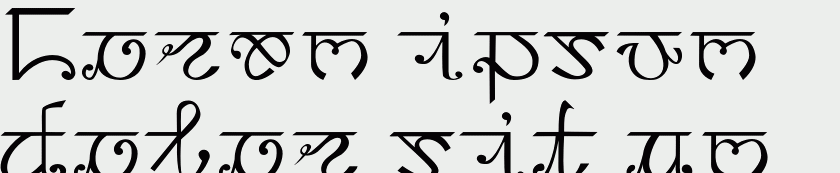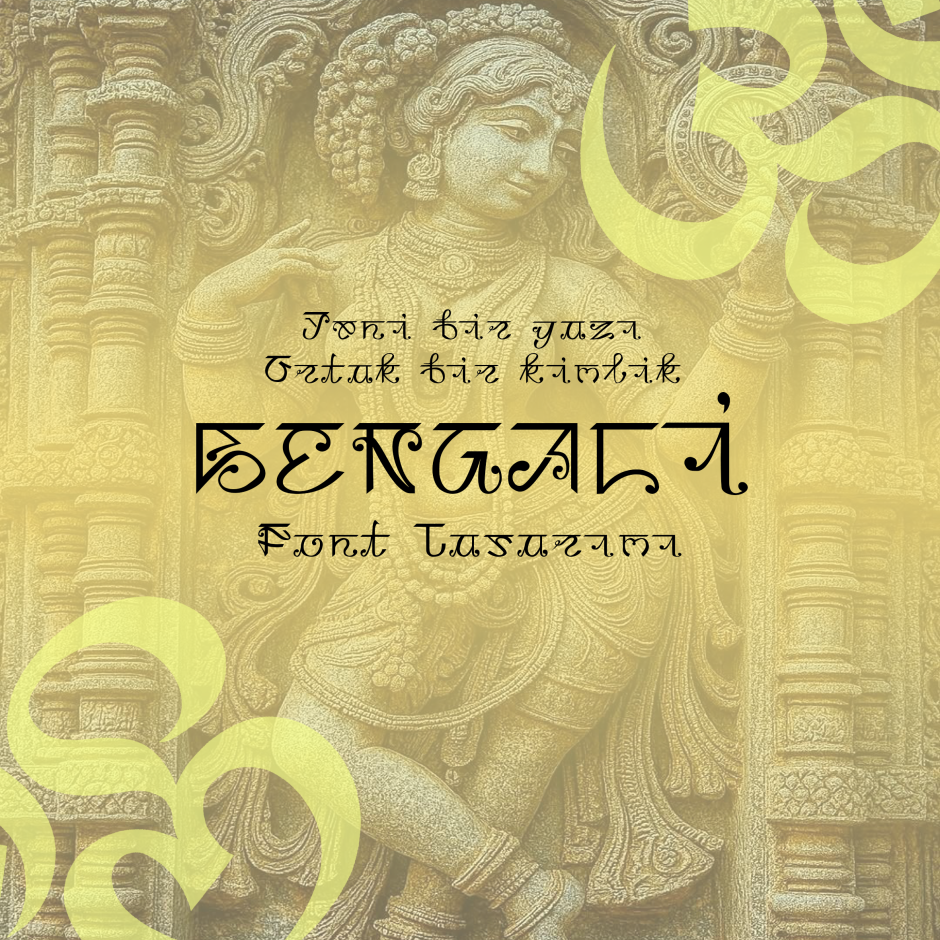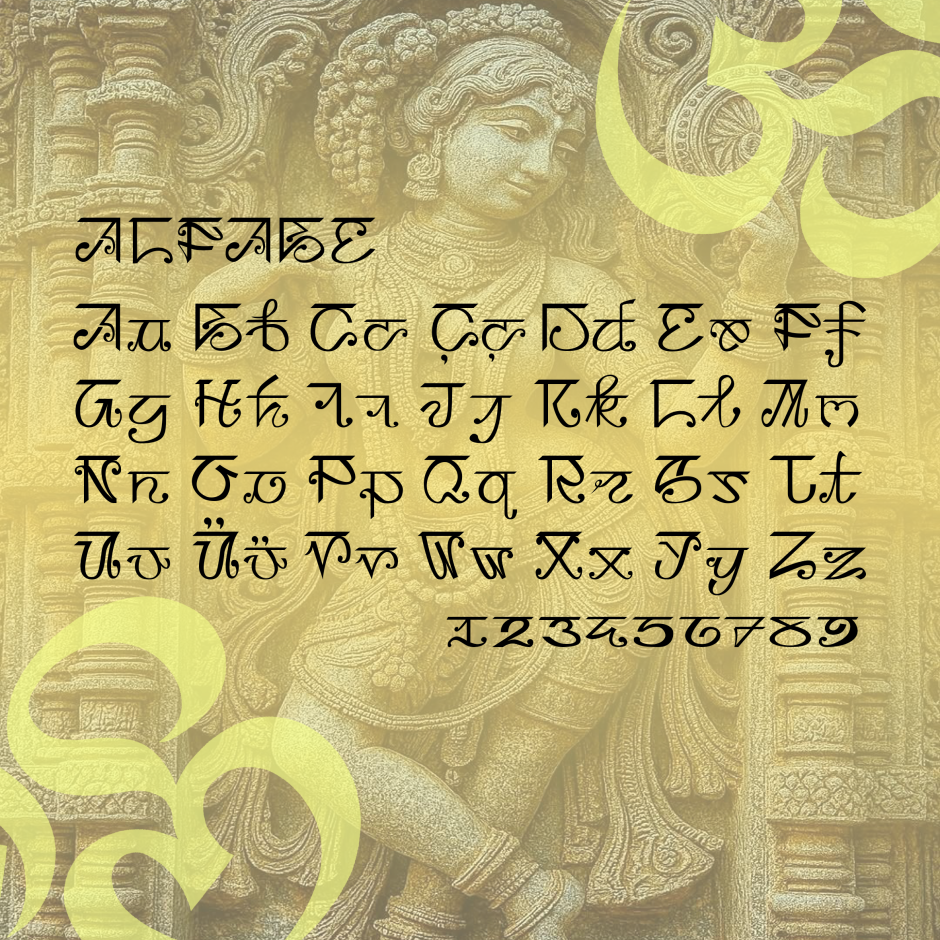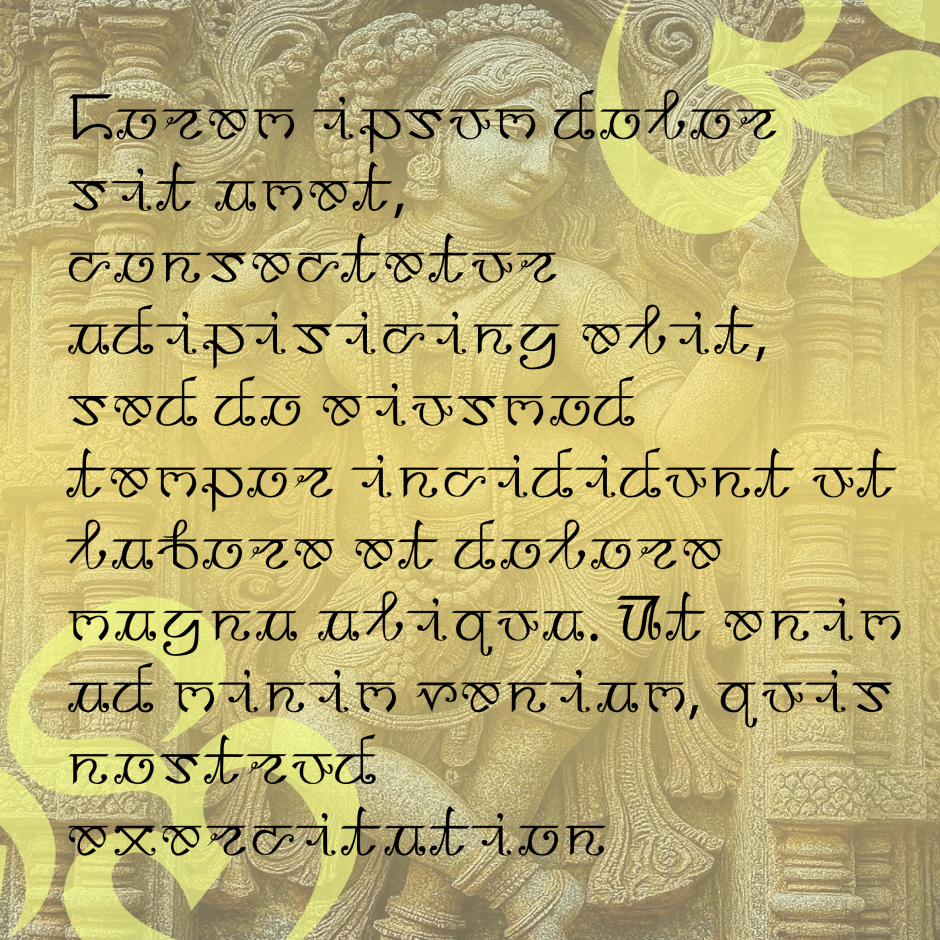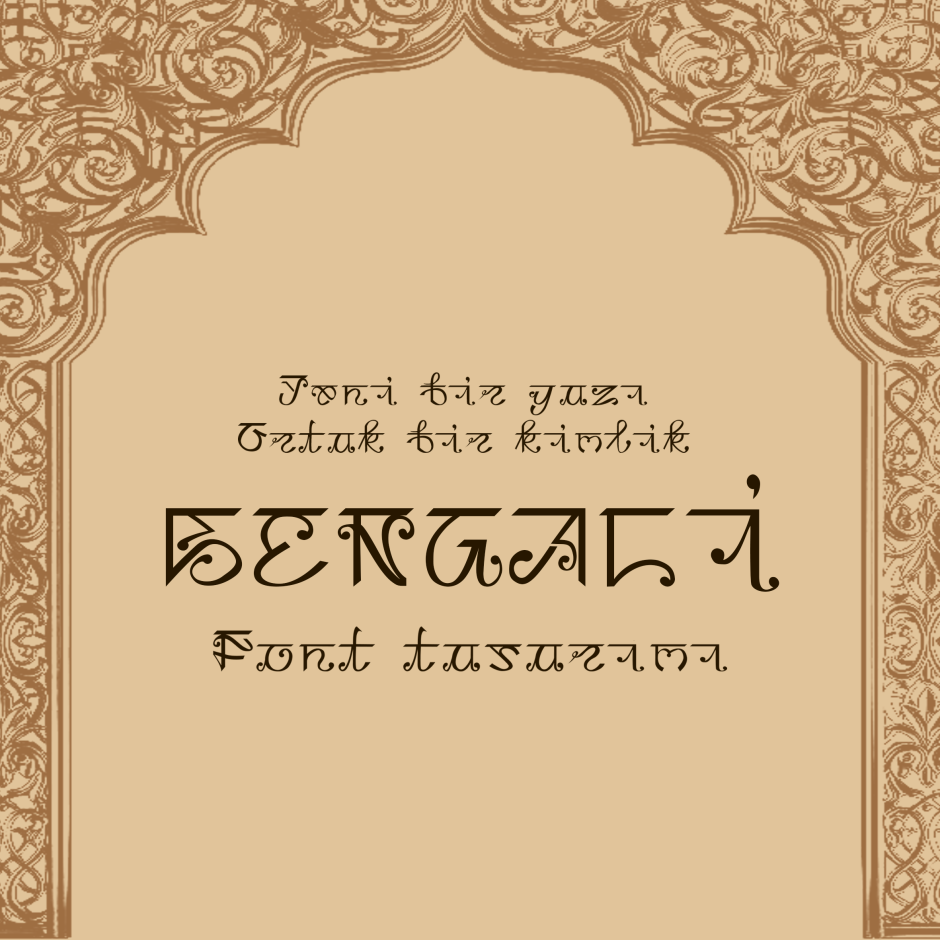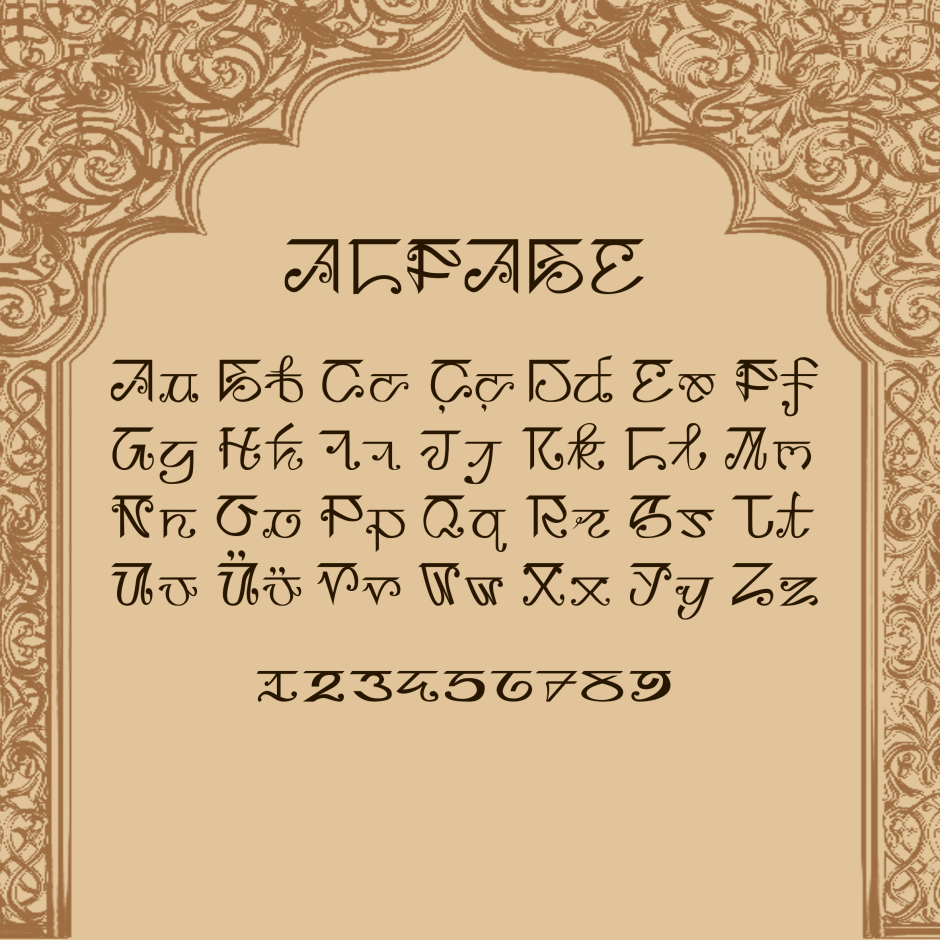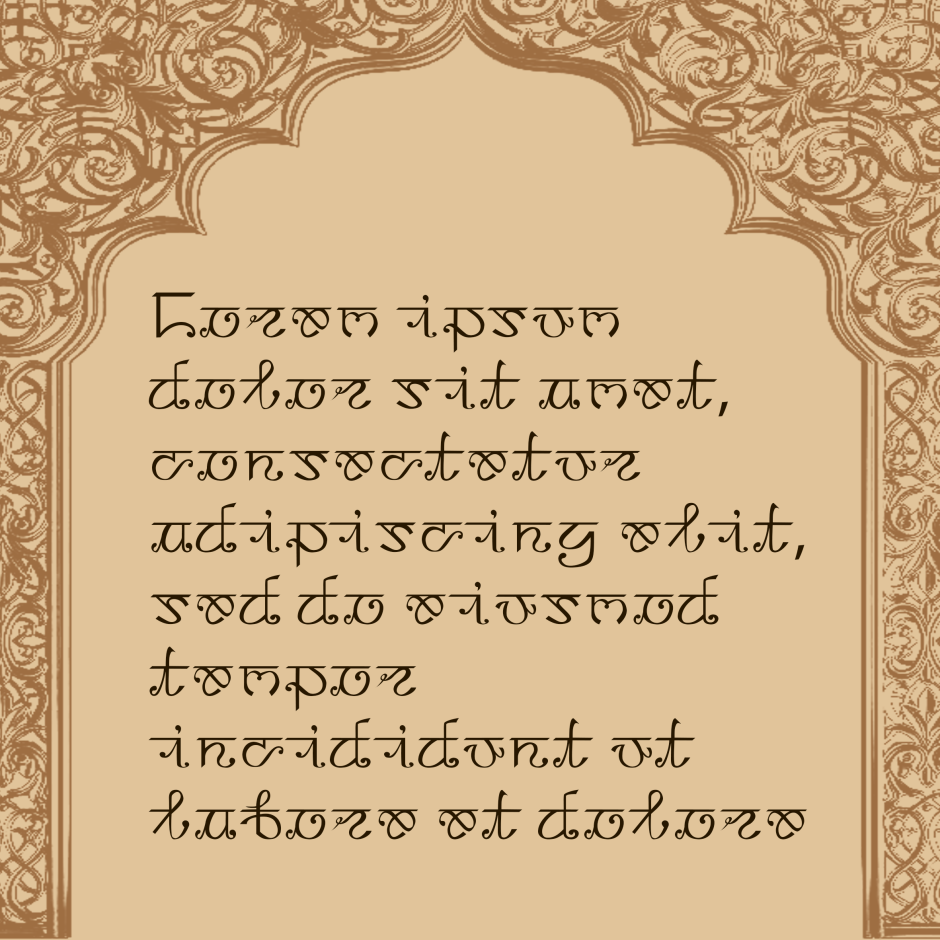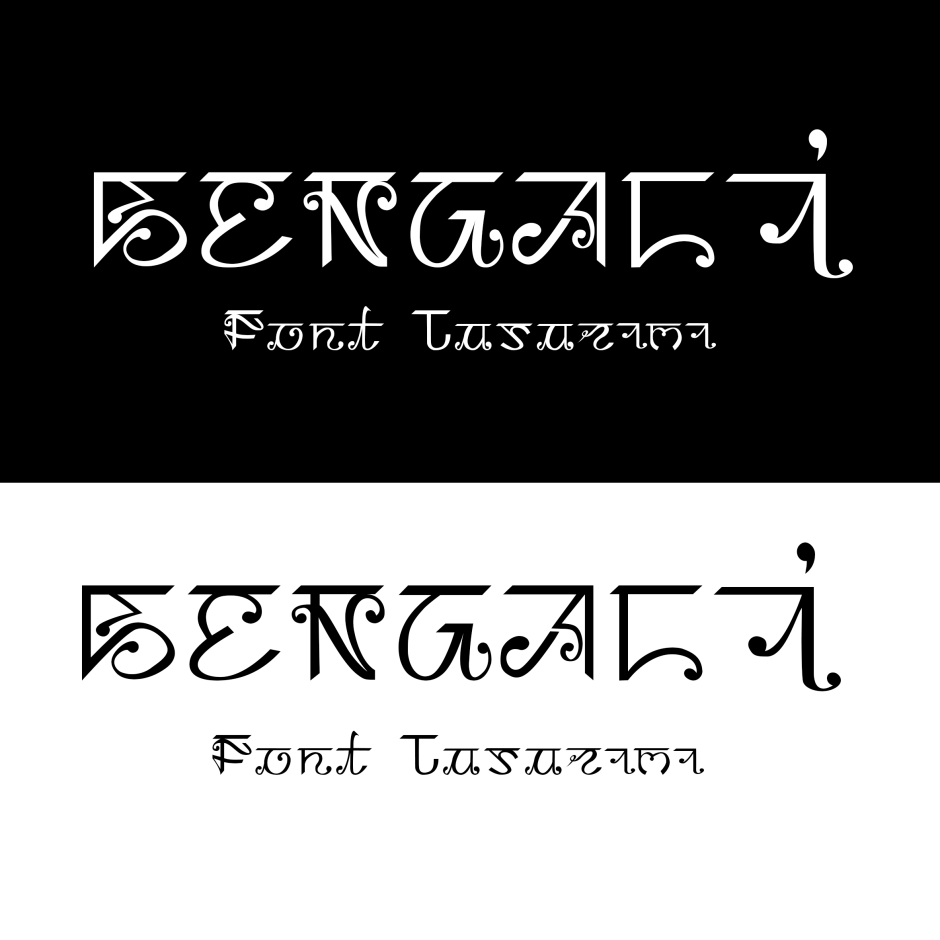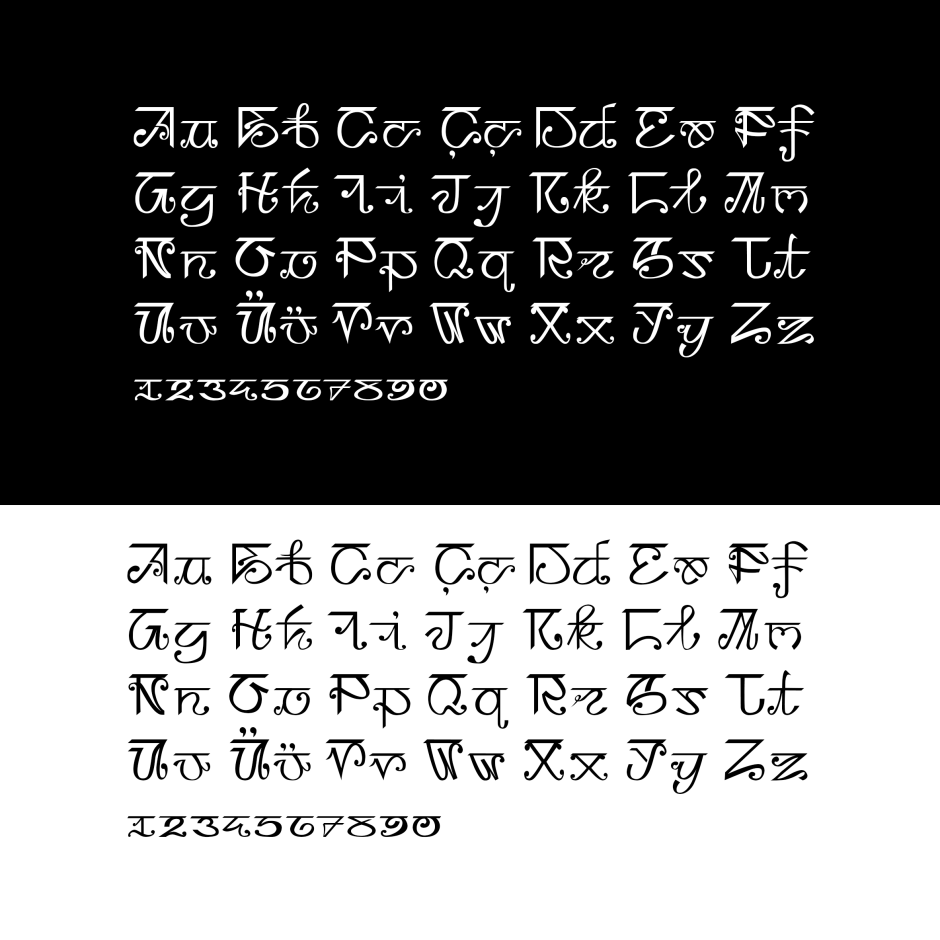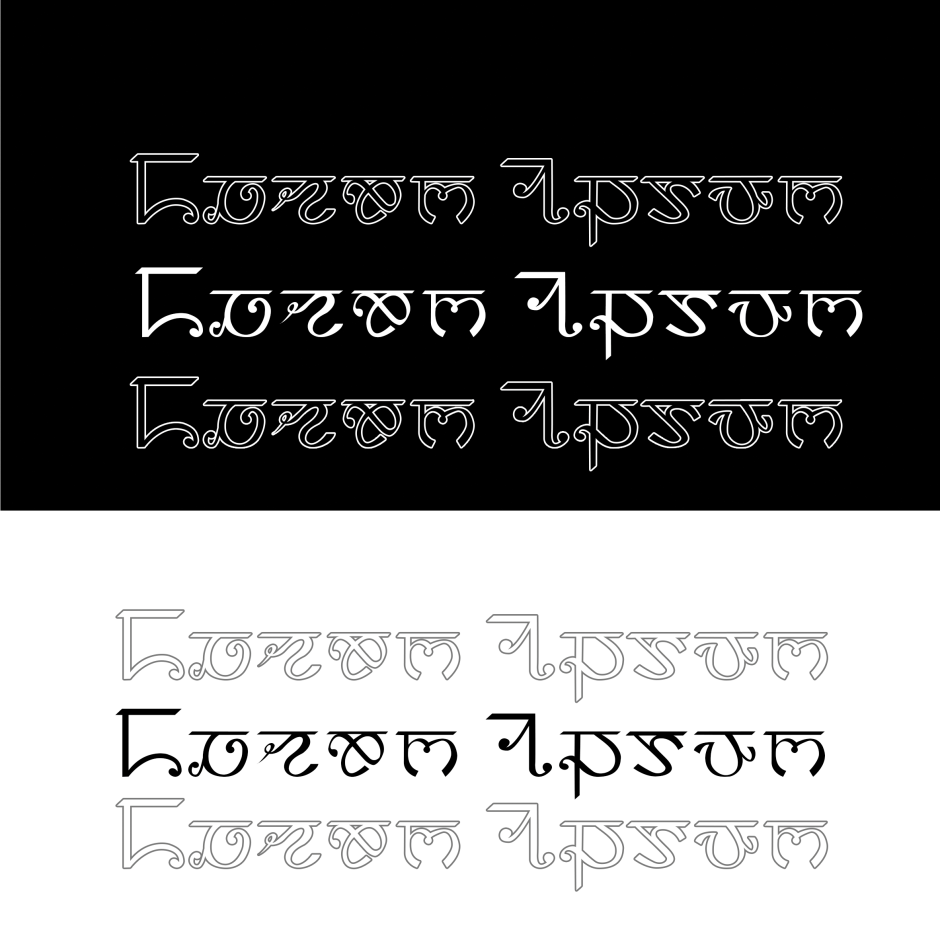
Bengali-Latin alphabet mix
This font was designed according to the Latin alphabet, carefully drawing upon the structural elements of the Bengali alphabet.